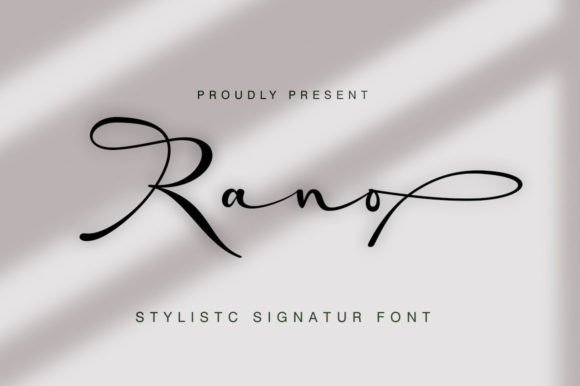
Step into the realm of captivating typography with Rano Font, a script font family that oozes charm and elegance. Its delicately crafted strokes evoke a sense of authenticity, adding a personal touch to your creative endeavors. Whether you're designing wedding invitations, crafting heartfelt thank-you cards, or creating stunning quotes, Rano Font will elevate your designs with its timeless appeal.
Unleash your creativity and explore the endless possibilities Rano Font offers. Its versatility shines through in logos, business cards, and any project seeking a handwritten flair. With Rano Font at your fingertips, you'll effortlessly craft designs that leave a lasting impression.
Experience the convenience of PUA encoding, allowing you to effortlessly access the full range of glyphs and swashes. Create intricate compositions, add charming details, and bring your designs to life with Rano Font's extensive character set. Let your imagination soar and weave visual stories that captivate and inspire.
Rano Font is more than just a collection of letters; it's an invitation to embark on a journey of self-expression. Its captivating charm will transform your designs, adding a touch of sophistication and elegance that speaks volumes. Discover the magic of Rano Font today and unlock the door to limitless creativity.